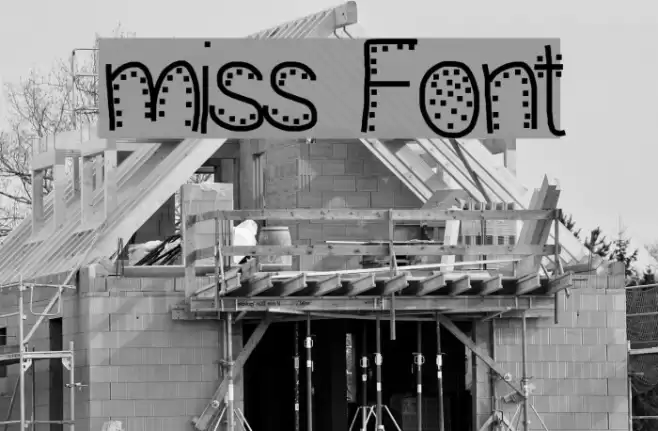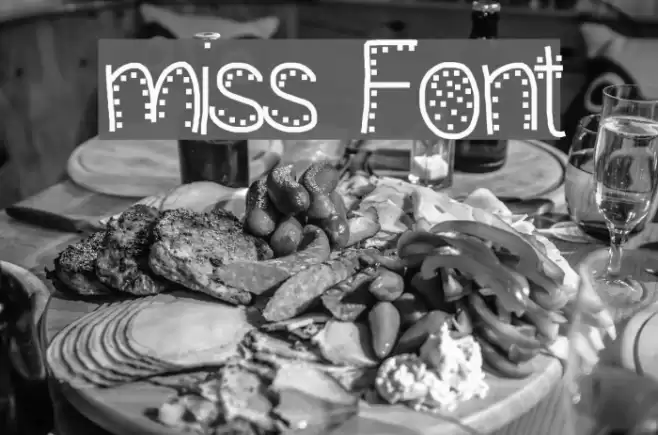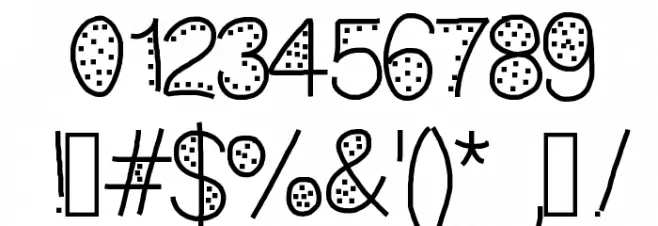
miss Font
miss Description
This font features a playful and decorative style with a unique dotted pattern within each character. The uppercase and lowercase letters maintain a consistent design, with clean lines and a whimsical touch. The numerals and special characters follow the same dotted theme, adding a cohesive look across all elements. The font's overall appearance is both modern and fun, making it suitable for creative and informal projects. Its distinctive design ensures that it stands out, making it ideal for eye-catching headlines or playful branding.
A playful, dotted decorative font with a modern and whimsical style from Uncategorized fonts.
- Proposed Projects: Ideal for children's books, playful branding, party invitations, and creative posters.